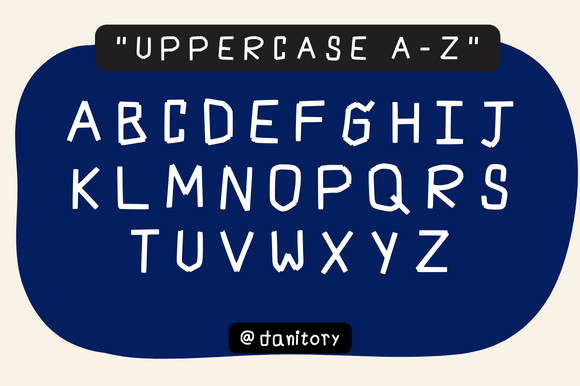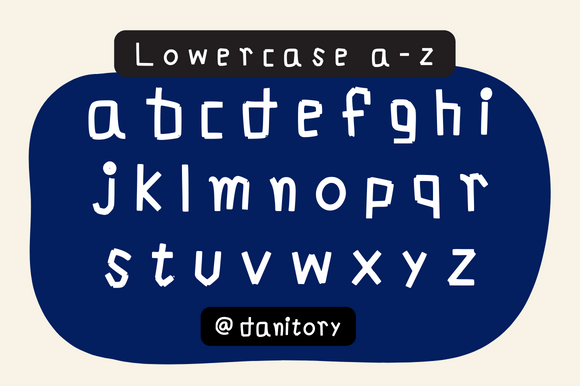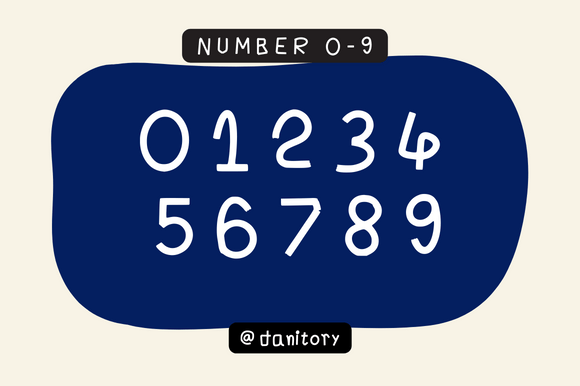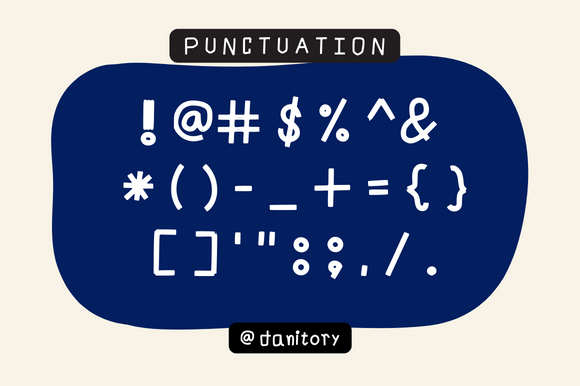
Billy Font: The Whimsical and Fun Handwritten Font for All Occasions
Billy Font is a delightful handwritten font that is sure to capture your heart with its whimsical and fun personality. This versatile font is perfect for a wide range of creative projects, from crafts and digital design to presentations and greeting cards. Whether you’re a designer, crafter, or simply someone who loves to add a personal touch to your work, Billy Font has the potential to become your favorite go-to font.
The Characteristics of Billy Font
Billy Font is a carefully crafted handwritten font that boasts a unique and charming personality. Its whimsical nature makes it perfect for projects that require a touch of playfulness and creativity. The font features:
- Handwritten style: Billy Font is a genuine handwritten font, giving it a personal and authentic feel.
- Whimsical flair: The font’s playful and carefree nature makes it perfect for projects that require a dash of creativity and fun.
- Legibility: Despite its whimsical nature, Billy Font remains highly legible, making it suitable for a wide range of applications.
Uses for Billy Font
Billy Font’s versatility makes it an excellent choice for various creative projects. Here are some of the many ways you can use this wonderful font:
- Crafts: Add a personal touch to your craft projects, such as scrapbooking, card making, and DIY gifts.
- Digital design: Use Billy Font in your digital designs, including social media graphics, blog posts, and website headers.
- Presentations: Add a touch of whimsy to your presentations, making them more engaging and fun to read.
- Greeting cards: Create personalized and unique greeting cards for special occasions, such as birthdays, weddings, and holidays.
Why Choose Billy Font?
With so many fonts available, why choose Billy Font? Here are just a few reasons why this font stands out:
- Unique personality: Billy Font’s whimsical nature sets it apart from more traditional fonts.
- Easy to read: Despite its playful style, Billy Font remains highly legible, making it suitable for a wide range of applications.
- Versatile: Use Billy Font for various creative projects, from crafts to digital design.
Tips for Using Billy Font
To get the most out of Billy Font, here are a few tips to keep in mind:
- Pair with complementary fonts: Combine Billy Font with other fonts to create visually appealing and interesting typography.
- Experiment with colors: Try pairing Billy Font with different colors to add an extra layer of personality to your projects.
- Use it sparingly: While Billy Font is a wonderful font, using it sparingly can make it more effective and impactful.
Billy Font is a delightful handwritten font that is sure to capture your heart with its whimsical and fun personality. Its versatility, legibility, and unique character make it an excellent choice for a wide range of creative projects. Whether you’re a designer, crafter, or simply someone who loves to add a personal touch to your work, Billy Font is a great addition to your font collection. So why not give it a try and see how it can elevate your creative projects?